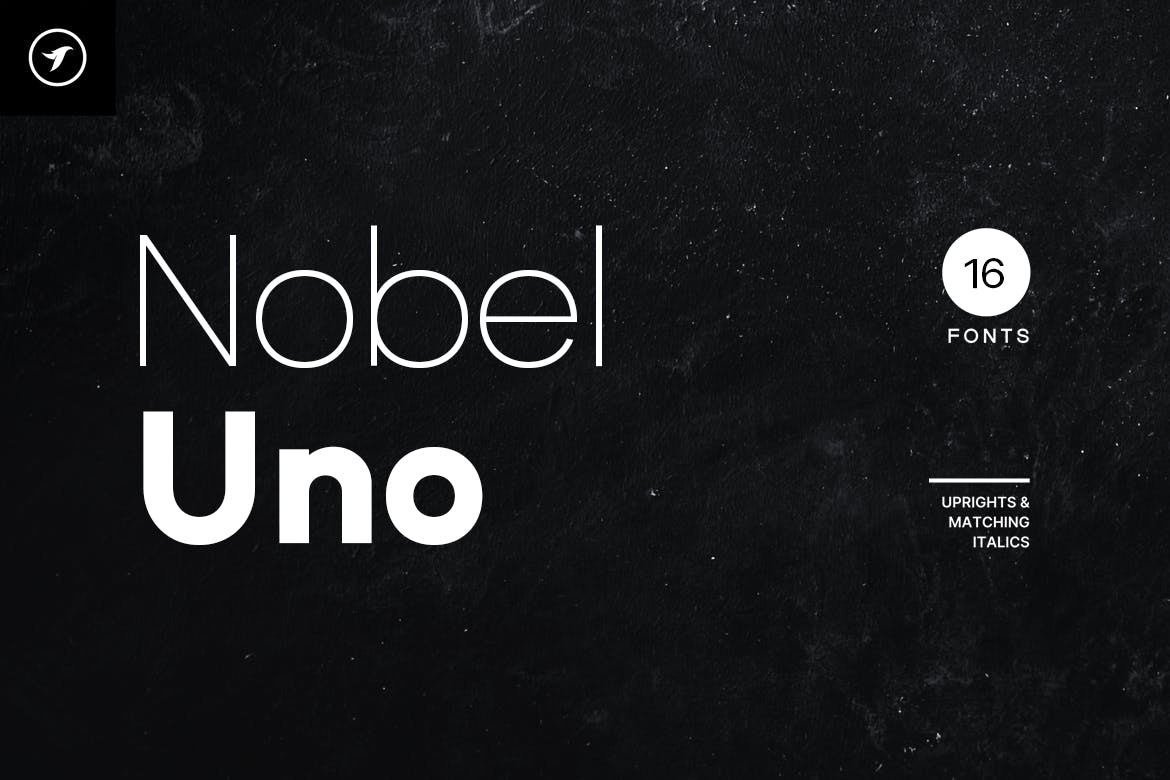
Nobel Uno - Modern Sans-Serif Font Family
Nobel Uno - Modern Sans-Serif Font Family excels in luxury branding projects, high-end editorial design, premium product packaging, sophisticated web design, corporate annual reports, fashion magazine layouts, upscale restaurant menus, architectural portfolios, and prestigious award presentations.
What makes Nobel Uno - Modern Sans-Serif Font Family exciting is its refined elegance that perfectly balances contemporary minimalism with subtle classical influences. This distinguished typeface features carefully crafted letterforms with precise proportions and sophisticated character spacing that exudes premium quality and timeless appeal. The font's clean lines and subtle personality create an atmosphere of exclusivity and professionalism, making it ideal for brands that demand the highest level of typographic sophistication and visual distinction.
Nobel Uno - Modern Sans-Serif Font Family includes comprehensive weight variations: UltraLight, Light, Regular, Medium, DemiBold, Bold, ExtraBold, and Heavy, each available in both roman and italic styles. This extensive collection provides 16 meticulously crafted fonts that enable designers to create nuanced typographic hierarchies and maintain visual consistency across complex brand systems.
Professional designers choose Nobel Uno - Modern Sans-Serif Font Family for its versatility and sophisticated presence. The font's balanced proportions make it equally effective in large-scale environmental graphics and detailed text settings. Its modern interpretation of classical proportions appeals to discerning audiences who appreciate quality craftsmanship.
This premium typeface consistently delivers exceptional results for clients who demand sophistication, reliability, and distinctive visual identity that stands apart from ordinary typography solutions.